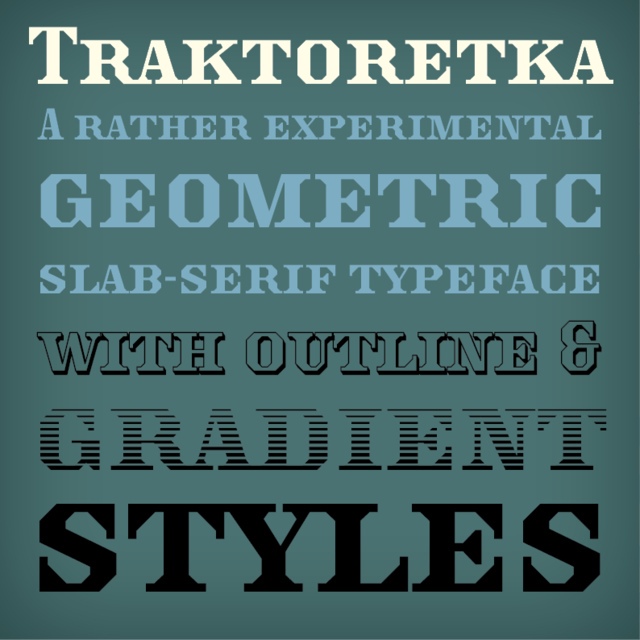
Traktoretka Font
Traktoretka Font is perfect for agricultural equipment branding, farm supply company logos, rural cooperative signage, heavy machinery advertisements, farming equipment dealerships, agricultural trade show graphics, countryside festival posters, organic farming certifications, agricultural education materials, and tractor manufacturer presentations. This robust typeface excels in applications where agricultural heritage, farming reliability, and rural community values are fundamental brand messaging elements.
What makes Traktoretka Font exciting is its authentic embodiment of agricultural strength and rural craftsmanship through sturdy letterforms that mirror the dependable construction of farm machinery and equipment. The font features bold, workmanlike character construction with subtle mechanical details that immediately convey durability and agricultural expertise. Its honest, no-nonsense personality reflects the hardworking values of farming communities, making it perfect for brands that serve agricultural markets and celebrate the essential role of farming in society.
The Traktoretka Font family typically includes multiple weights from Regular to Bold, often featuring condensed variations that accommodate space-efficient agricultural documentation and equipment labeling. Many versions include extended character sets with agricultural symbols, measurement notations, and specialized punctuation commonly used in farming contexts. Some collections feature weathered variations and stencil effects that enhance the authentic agricultural aesthetic for outdoor signage and equipment branding applications.
Whether you're developing brand identities for agricultural businesses, creating educational materials about farming practices, or designing promotional content for rural communities, Traktoretka Font Free Download provides the authentic agricultural character that resonates with farming families and rural professionals who appreciate genuine quality and reliability. Its dependable presence makes it ideal for businesses that understand the unique needs and values of agricultural communities. The font's ability to convey both technical competence and rural authenticity makes it particularly valuable for equipment manufacturers, agricultural cooperatives, and farming service providers seeking to build trust with customers who depend on proven performance and honest communication in their essential agricultural operations.